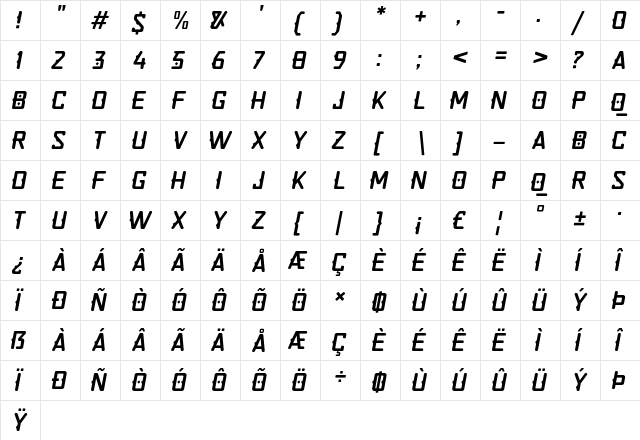
Quirko Oblique
| Foundry | Shrenik Ganatra |
| Designer | Shrenik Ganatra |
Design Context for Quirko Typeface
Quirko takes a measured approach to typography — its balanced proportions and neutral character make it a reliable workhorse for both digital and print work. The slanted form adds forward momentum and visual energy.
Pro Tip: Try Quirko for annotation and caption copy alongside an upright companion — the contrast in angle creates a dynamic but ordered typographic system.